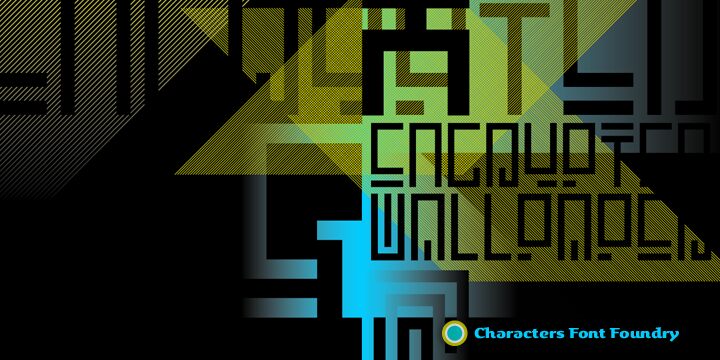
Encrypted Wallpaper by Rene Verkaart is a free futuristic display font with a dense, maze-like silhouette. Its tall rectangular letters combine broad strokes with narrow internal gaps in an architectural pattern. Repeated right-angle turns make the alphabet resemble coded circuitry.
Digital graphics are the clearest setting for this design, especially game interfaces, electronic music artwork, and technology event posters. The circuit-board geometry can also become part of sci-fi packaging and arcade branding, linking the lettering directly to machines, encrypted signals, and retro-futurist worlds.